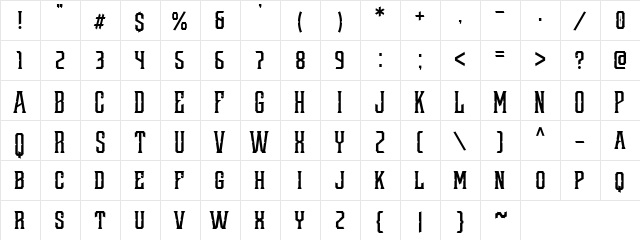
Redsniper Regular
| Foundry | Locomotype |
| Designer | Arwan Sutanto |
Design Context for Redsniper Typeface
Redsniper is a composed and adaptable typeface that performs quietly and consistently across a wide range of design contexts.